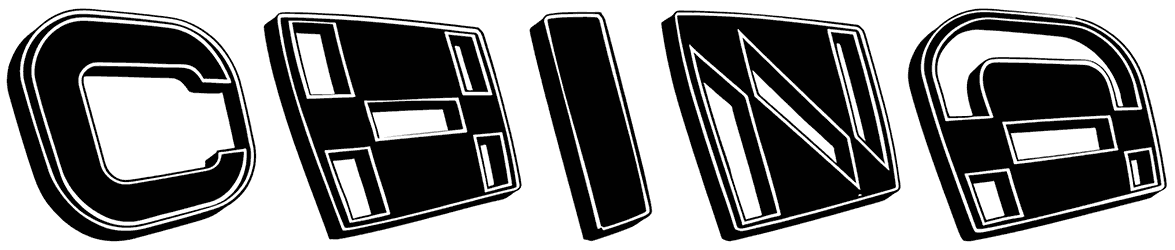
True 3D fonts for use in design work can be hard to come by, RB has generously donated a wonderful fancy font to aid you in your endeavors. Some truly magnificent display art can be brought to life with the help of the China font.
Its bold, square-shaped characters are ideal for conveying confidence and vigor. Although this decorative font lacks lowercase letters and is somewhat unreadable, it can be used to create visually appealing posters, T-shirt designs, and flyer headlines.